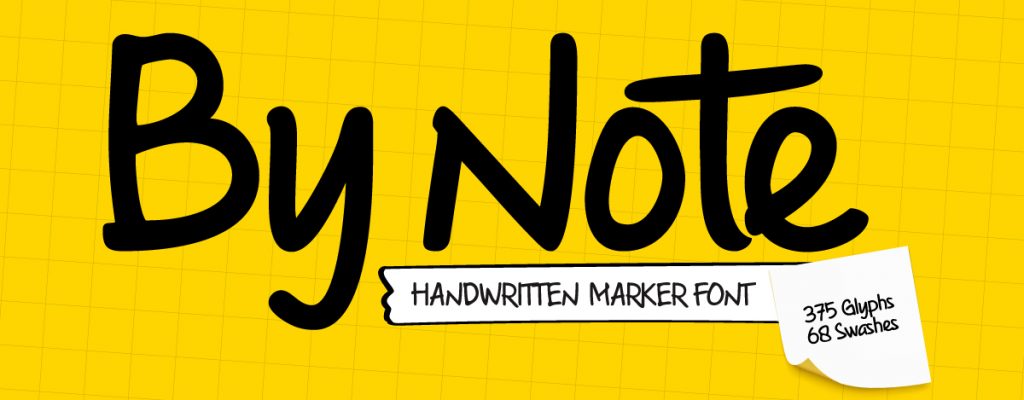
By Note Handwritten Marker Note Font
By Note is a handwritten marker note font that’s created with a natural and unique style. A Note Handwritten note font is suitable for various design graphics projects and can be used in any size.